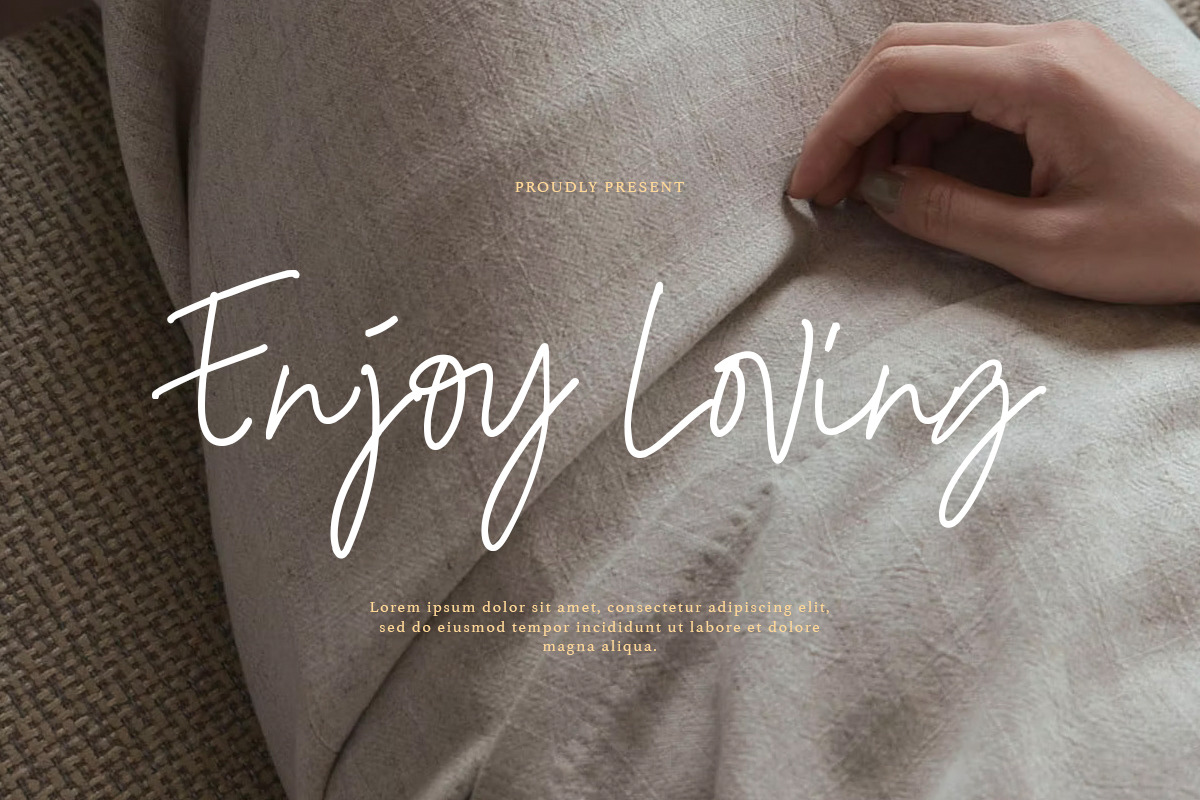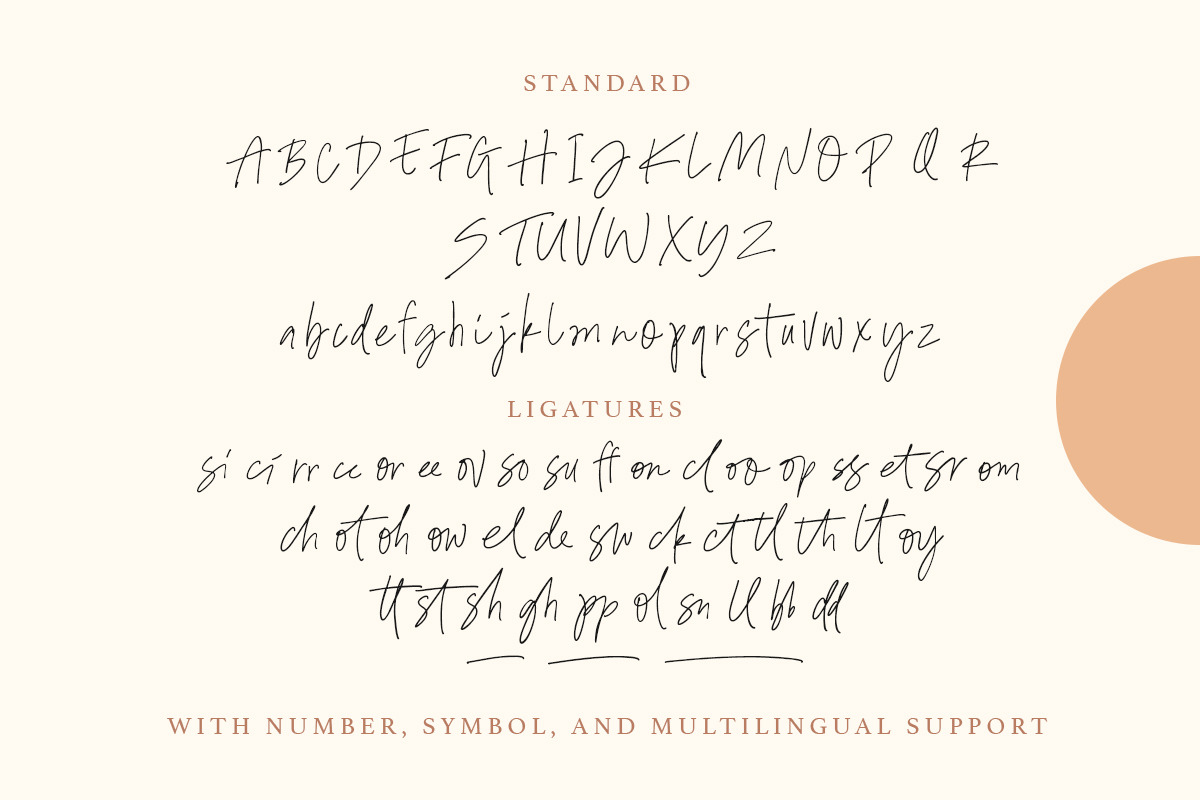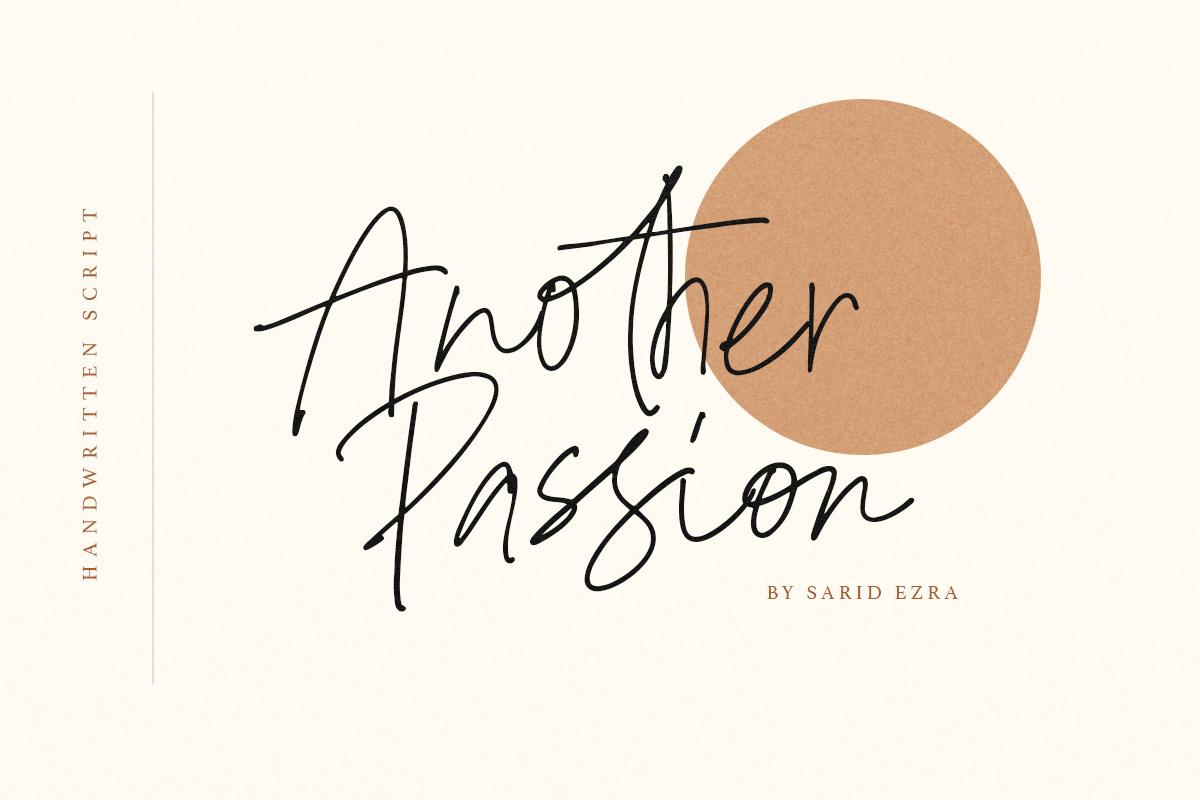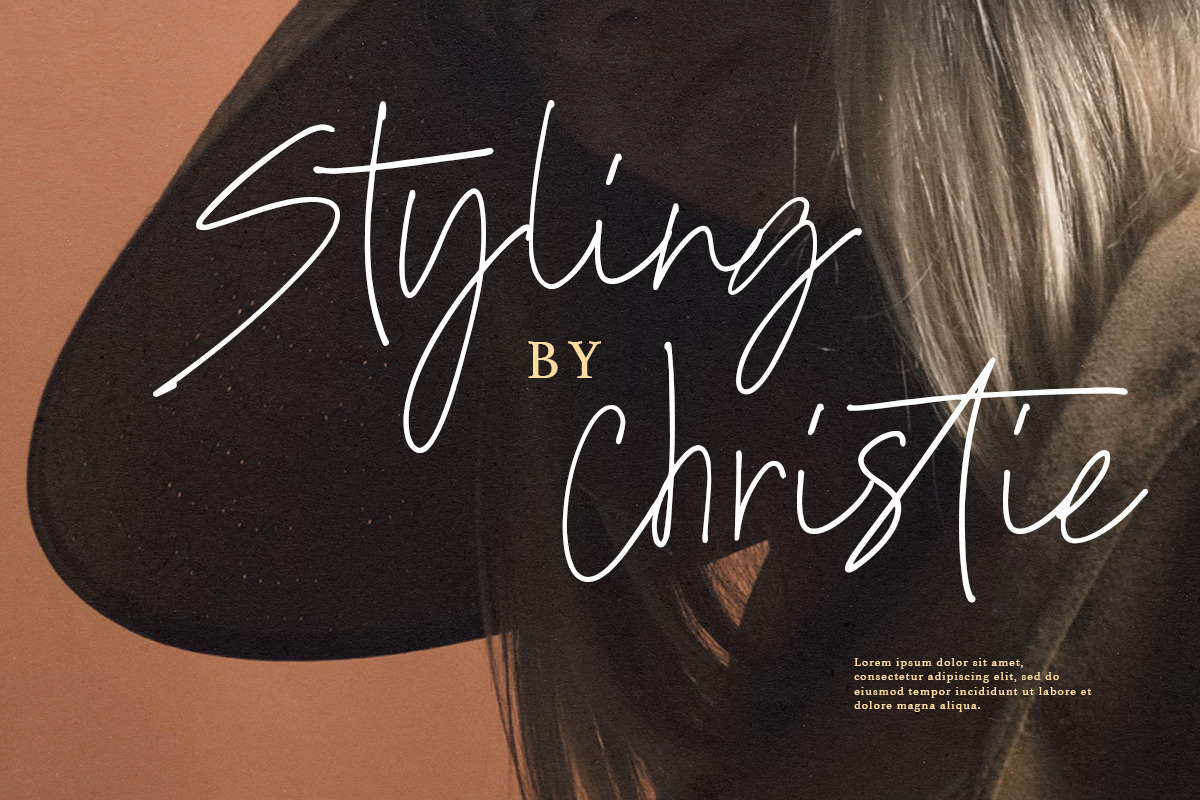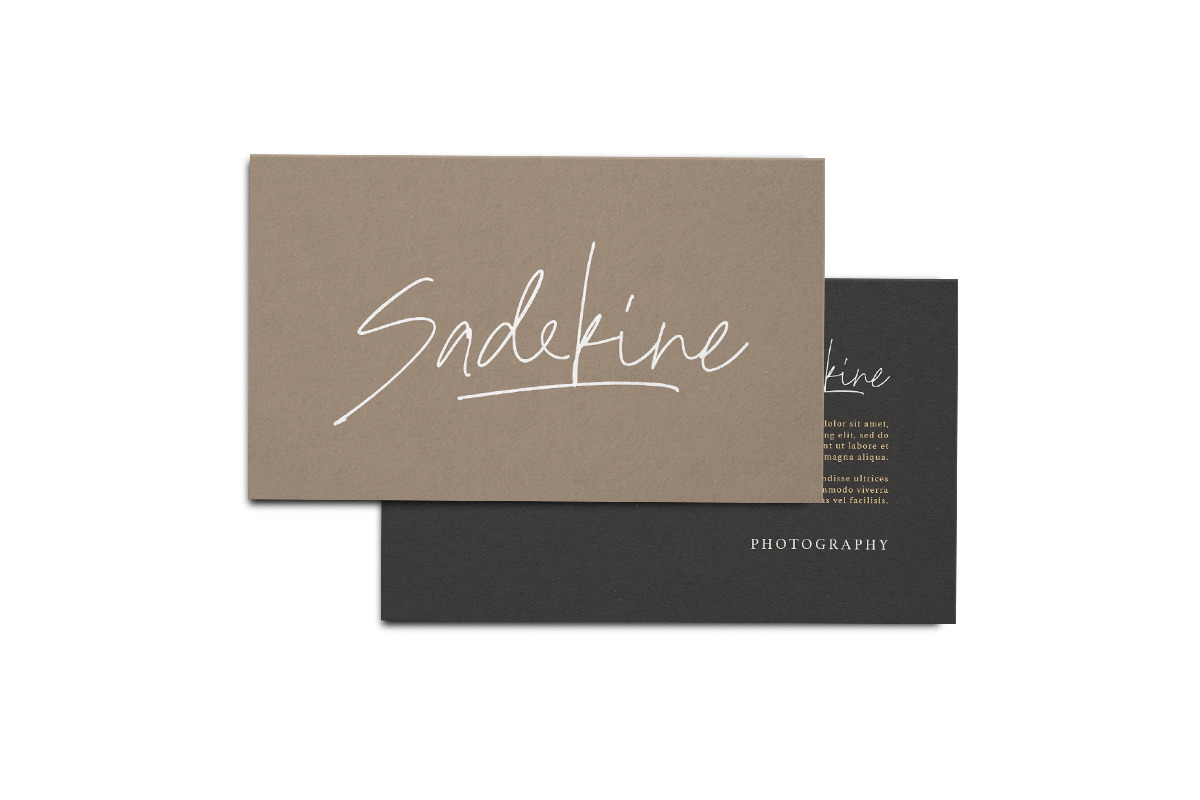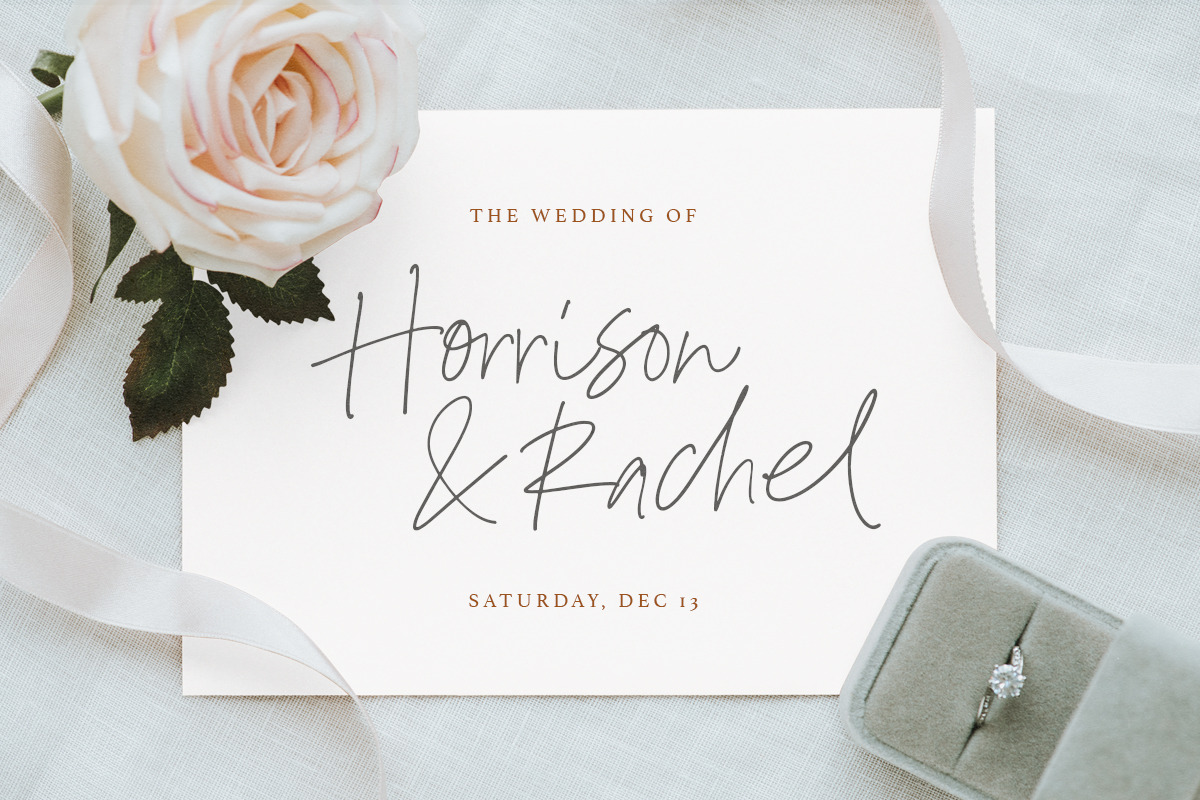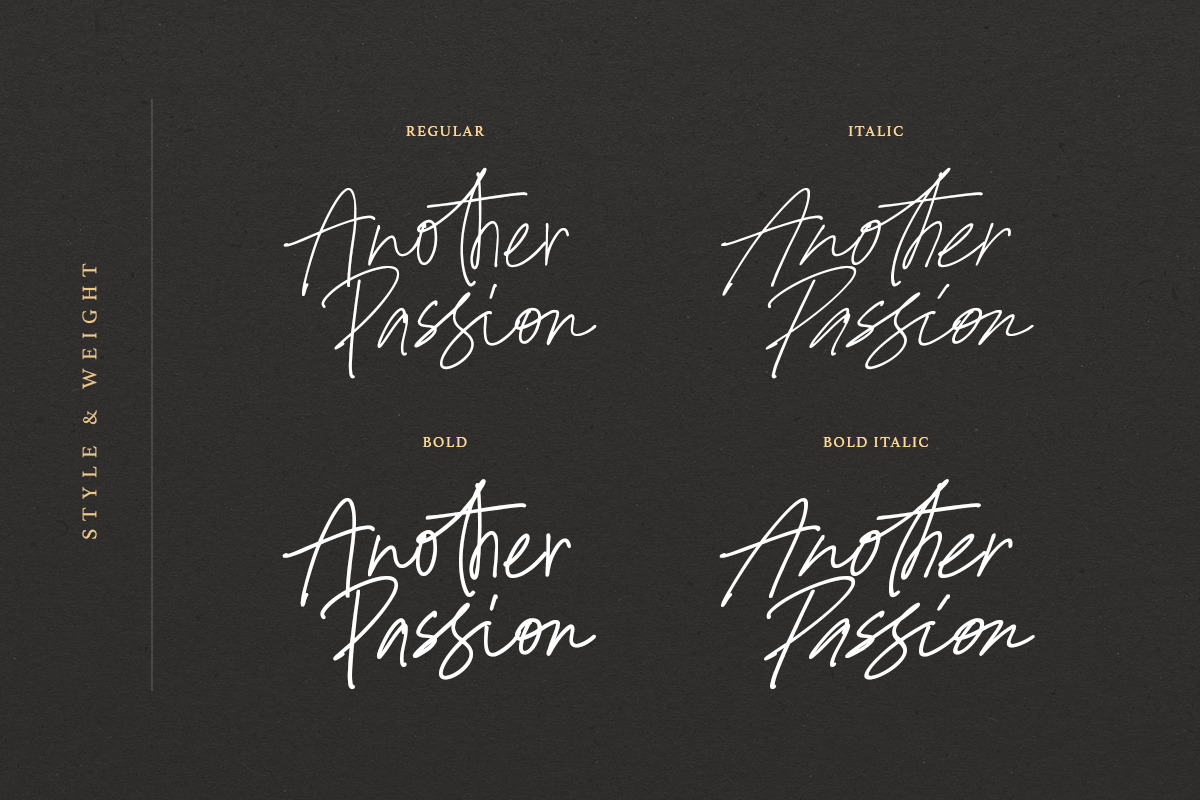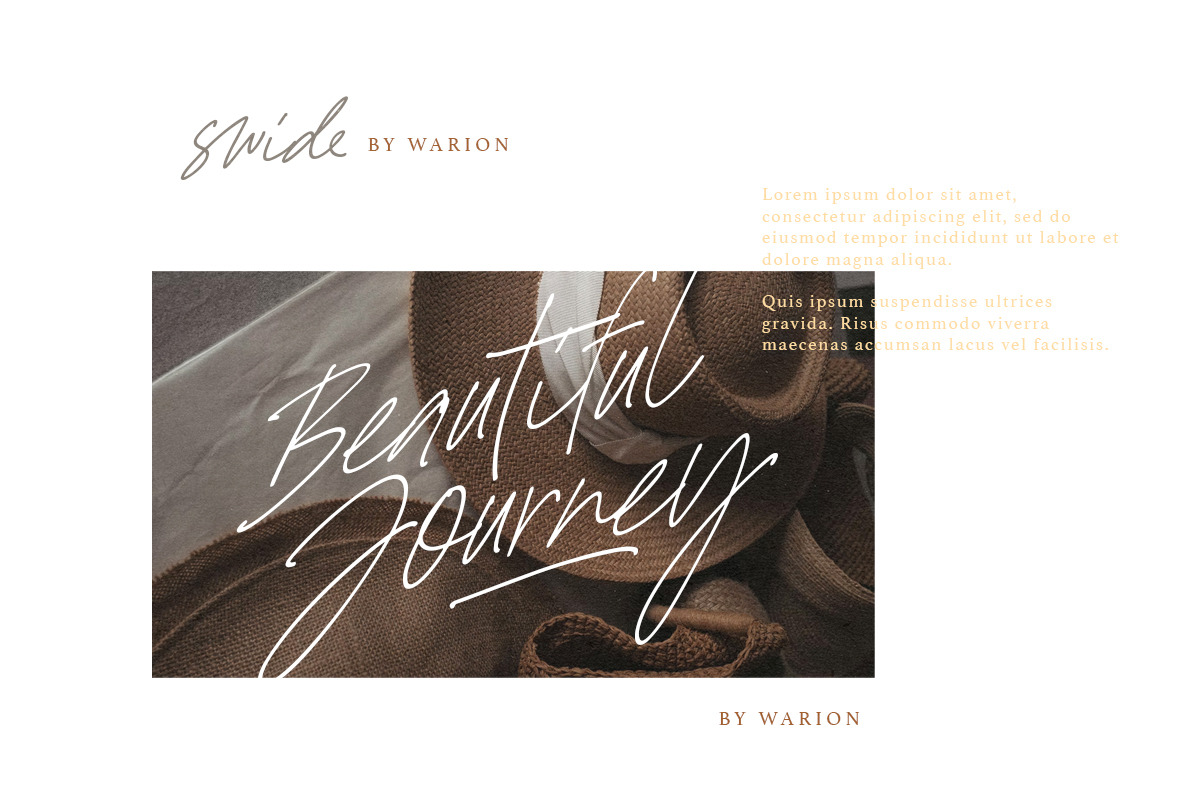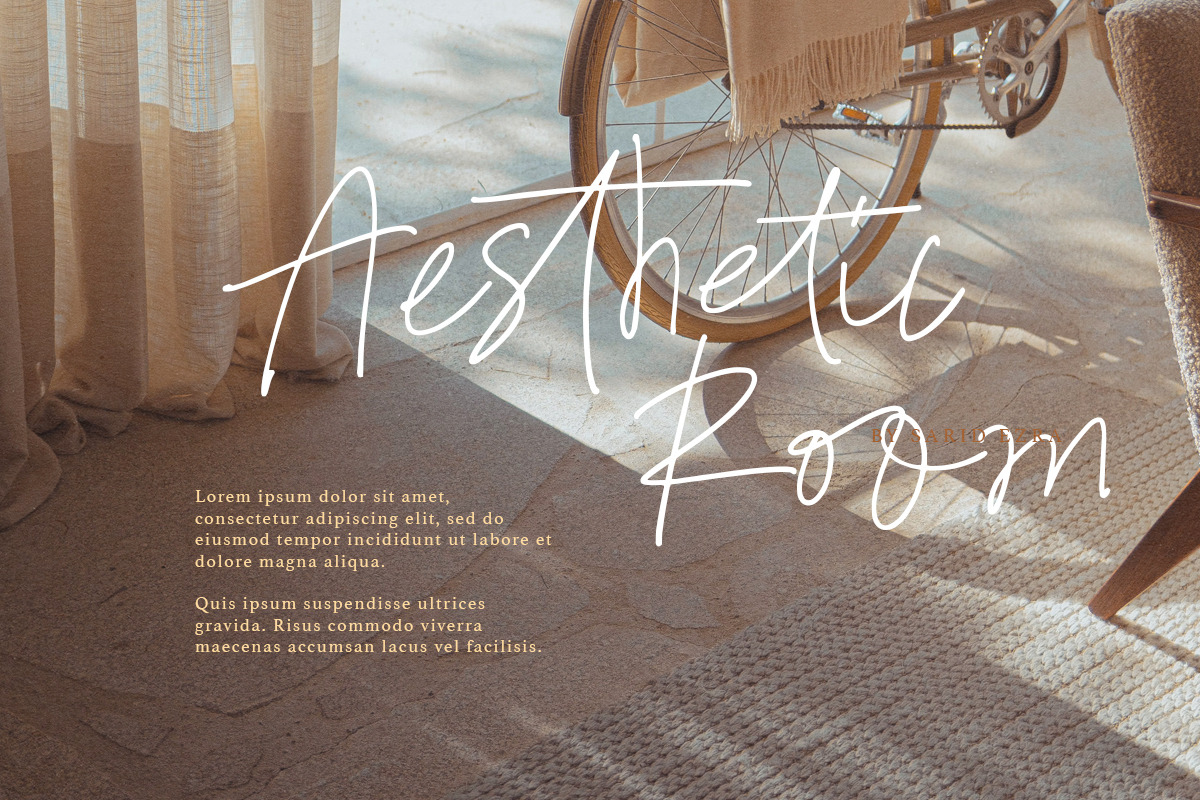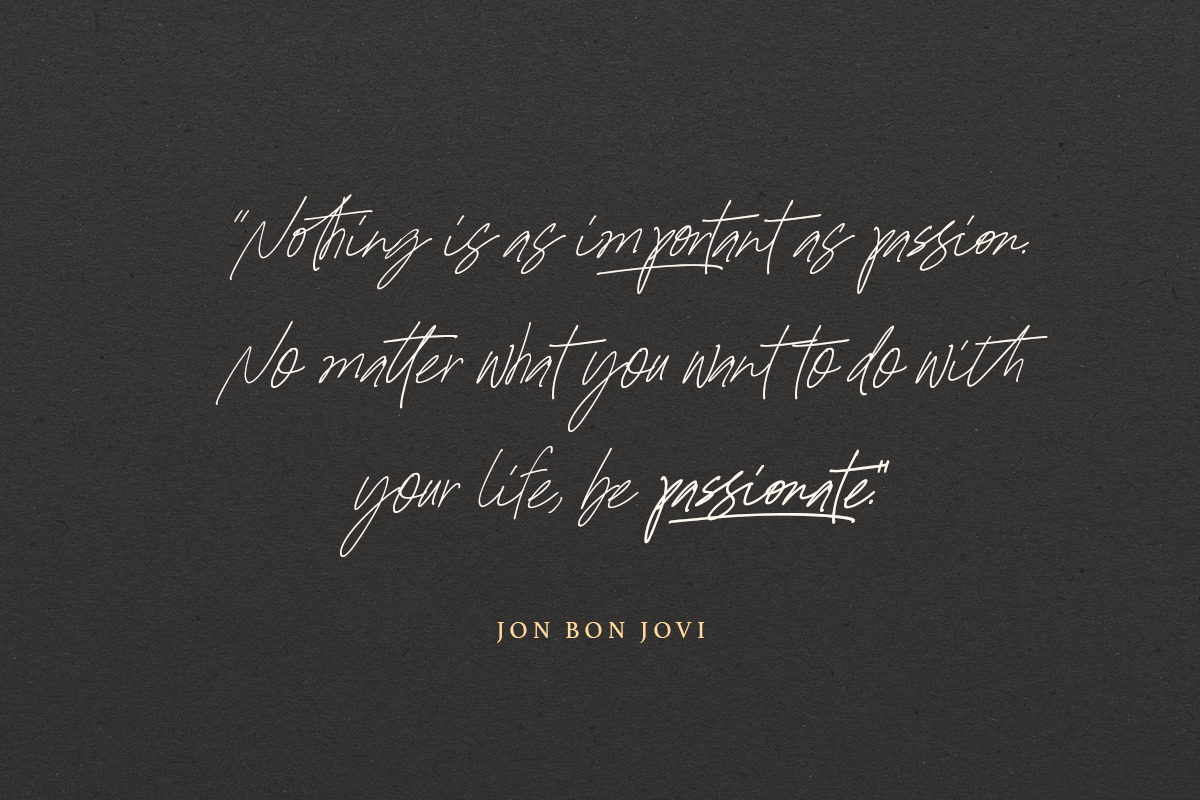
Another Passion - Handwritten Font
Introducing, Another Passion Script Family, make your own handwritten!
Another Passion Script Family contain 4 FONTS including ligatures and underline. Also comes with italic, bold, and bold italic. Another Passion Script is a handwritten font that you can use to make a logo for branding, beautiful fashion design, or handwritten quote. Also already PUA Encoded.
Foreign Languages Support: ÀÁÂÃÄÅÇÈÉÊËÌÍÎÏÐÑÒÓÔÕÖØÙÚÛÜÝßàáâãäåæçèéêëìíîïðñòóôõöøùúûüýÿ